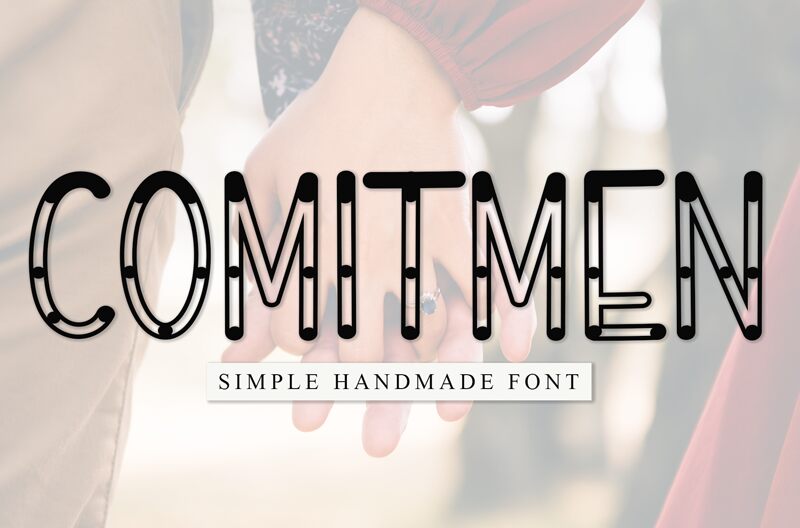
Comitmen is a free font designed by Andi Moz. It is an original fancy font with a unique decorative style. The font combines elements of futurism, geometry, and modernity for an interesting and artistic result. The unconventional letterforms are ideal for contemporary applications and creative projects. It may have slightly a handmade feel, which makes it truly a unique font, especially compared to other geometric fonts.
Comitmen is the adequate font for your unusual design. Unleash the beast with this type that can help you pull up creative posters, covers, and magazine articles. It will also be a good choice for attractive titles or surprising way-finding signs. The font will not fail you either in a web design project or a generative artwork at one of the design studios, universities, or even yourself alone.
This is a sweet and friendly handwritten display font. Cute and fun, this font is ideal for writing wedding invitations, cards, or any design that might need a playful touch!